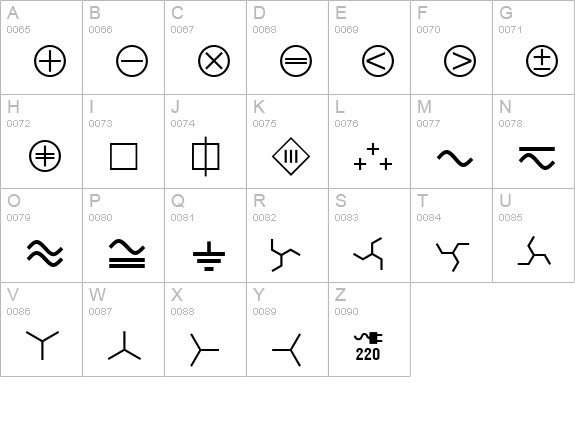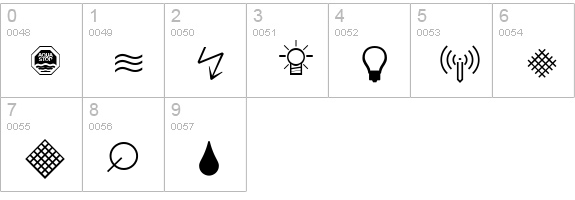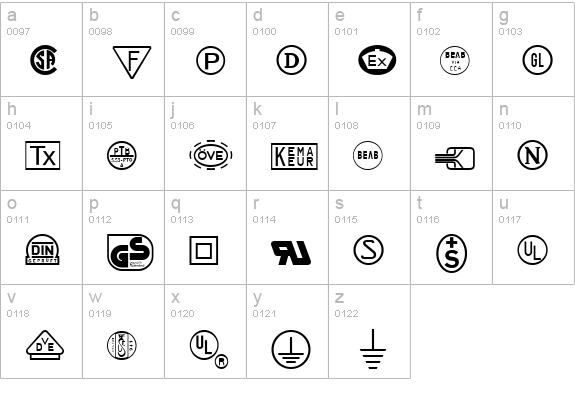
Technical LH Pi Two font is a sleek and modern typeface that is perfect for all your technical and scientific needs. With its clean lines and precise shapes, this font is ideal for displaying data, charts, and diagrams. The Technical LH Pi Two font is not only visually appealing, but also highly functional. Each character is designed with precision, ensuring maximum legibility and clarity, even at small sizes. Whether you are designing technical documents, reports, or presentations, this font will make your content stand out. One of the best things about the Technical LH Pi Two font is that it is freely available to download at FontsMarket.com. This means that you can access this high-quality typeface without any cost. Whether you are a professional designer or a student working on a project, this font is a valuable addition to your font library. The Technical LH Pi Two font is compatible with various design software, making it easy to integrate into your existing workflow. It is available in multiple formats, including TrueType and OpenType, ensuring compatibility with both Windows and Mac operating systems. In addition to its functionality and availability, the Technical LH Pi Two font also offers a wide range of glyphs and symbols, making it versatile for a variety of projects. Whether you need mathematical symbols, scientific notations, or technical icons, this font has you covered. Overall, the Technical LH Pi Two font is a must-have for anyone in need of a professional and functional typeface. Its clean design, legibility, and wide range of glyphs make it perfect for technical and scientific applications. Don't miss out on this opportunity to enhance your designs with this fantastic font, freely available for download at FontsMarket.com.